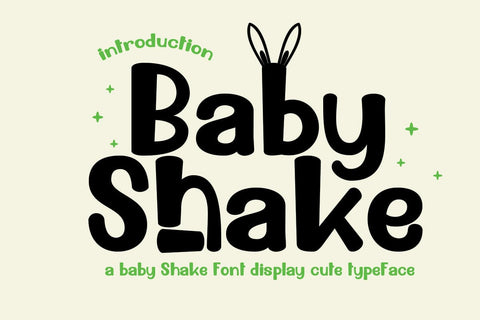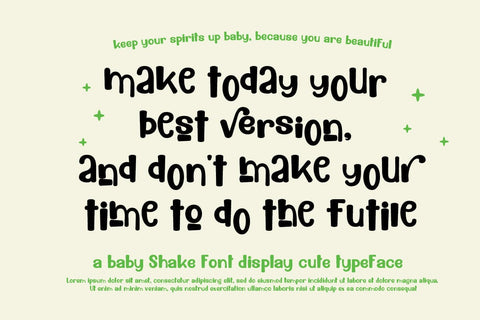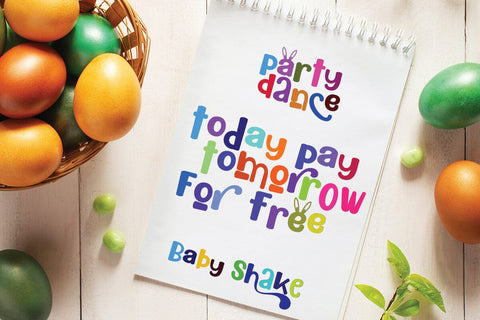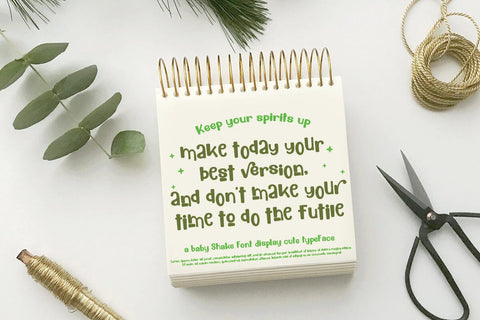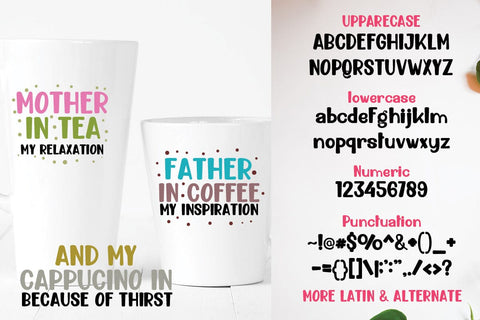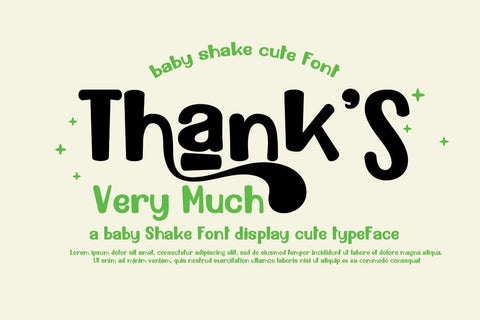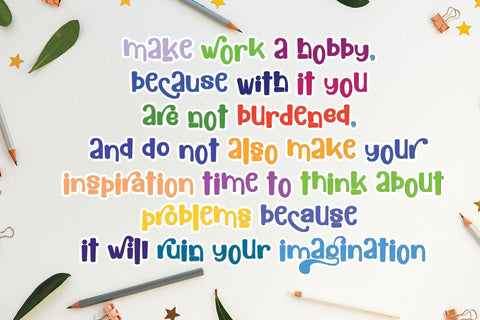
Baby shake font
Baby shake is a cute and cute font, this font always invites anyone to pay attention to it there are some unique characters that you can use, it is perfect for displaying your expression wherever you use it, and it is also coded with PUA which means you can easily access all characters with a glyph easily